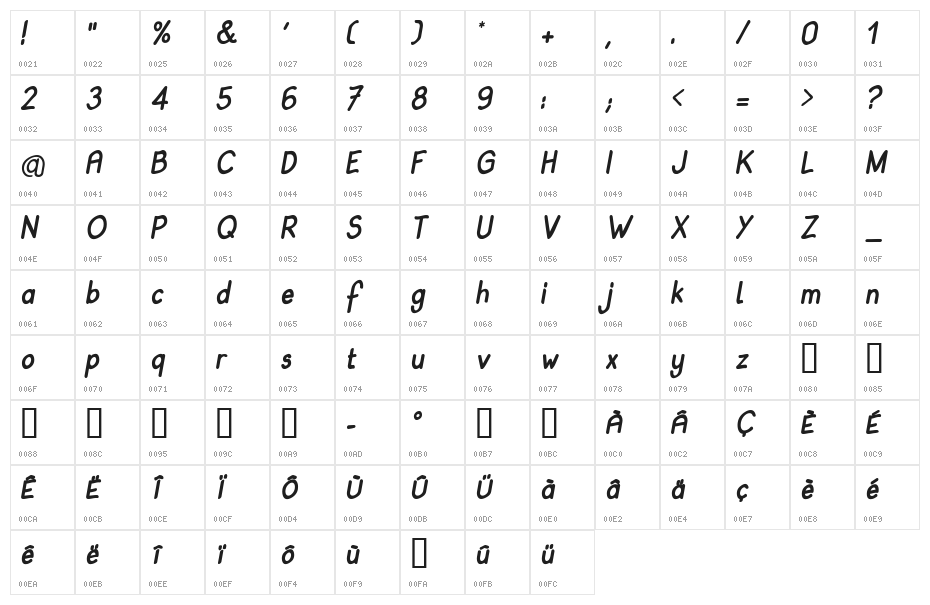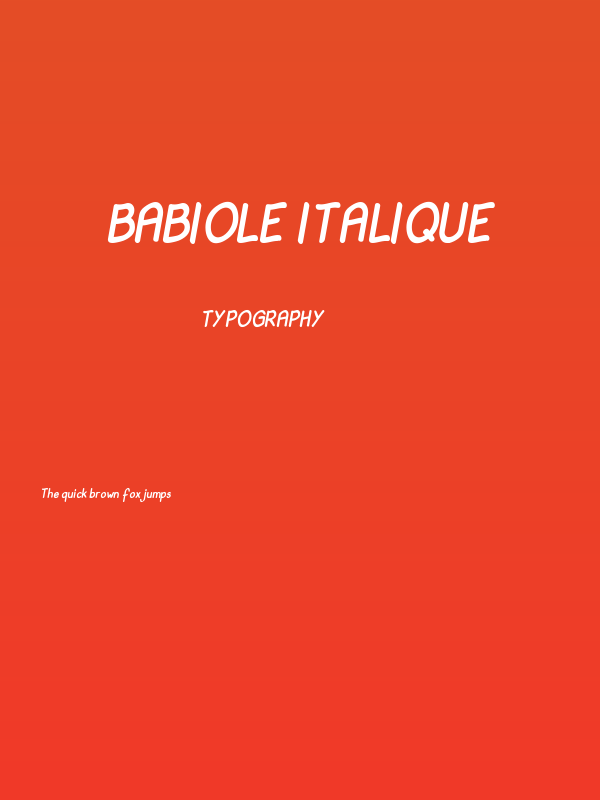
Babiole Italique Font
Babiole Italique Description
This font exhibits a playful and informal style, characterized by its handwritten appearance. The letters are slightly slanted, giving it an italicized look, which adds to its casual and dynamic feel. The strokes are consistent in thickness, providing a uniform and cohesive look across all characters. The rounded edges and smooth curves contribute to its approachable and friendly aesthetic. This font is versatile, suitable for projects that require a personal touch or a relaxed vibe. Its readability is maintained across both uppercase and lowercase letters, making it functional for various text lengths.
| Proposed Projects | Ideal for greeting cards, invitations, personal blogs, and children's books. |